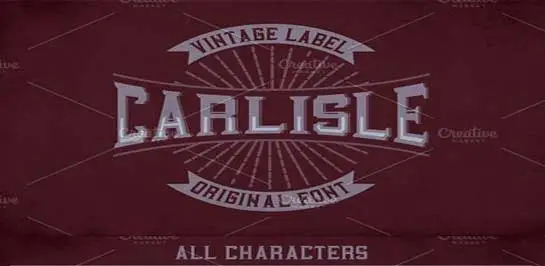
Introducing the Carlisle Label Typeface! 🎉 This digital download brings you a stunning font that’s perfect for all your creative projects. With instant access, you can start designing right away! Whether you’re working on branding, packaging, or editorial designs, this typeface adds a touch of vintage charm that captivates and inspires. ✨
The Carlisle Label Typeface is a stylish and versatile font designed to enhance your digital and print projects with a classic, vintage-inspired look. Perfect for branding, packaging, labels, logos, and editorial designs, this typeface offers clean lines and a timeless appeal that easily adapts to various creative styles. Imagine using it for your next project and bringing a delightful retro vibe to your designs! 🌟
- Elegant vintage-inspired design: Perfect for creating a nostalgic feel in your projects.
- Highly readable and versatile: Works wonderfully for multiple uses, from labels to logos.
- Includes uppercase and lowercase characters: Offers flexibility in your typography choices.
- Supports numbers and punctuation marks: Full range of characters for all your text needs.
- Ideal for labels, logos, posters, and packaging: A go-to choice for any creative endeavor! 🎨
This typeface is a fantastic choice for graphic designers, branding experts, and small business owners looking to create eye-catching labels and logos. If you want to make your packaging stand out, the Carlisle Label Typeface is just what you need! 🛍️